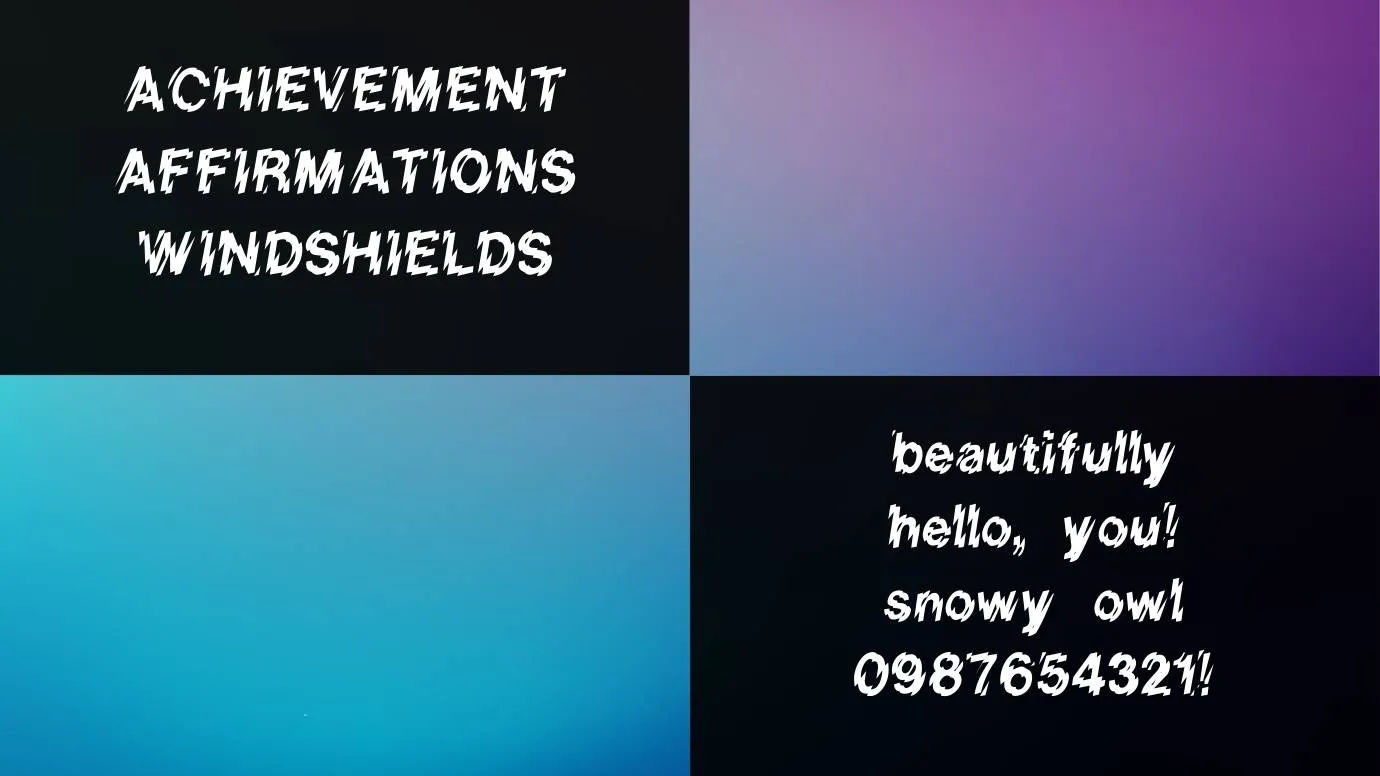
If you’re looking for a comic typeface that will make your designs stand out, then Glass Houses Font is a perfect choice. Glass Houses typeface is a comic typeface created by a Canadian typeface designer. It was named after the glass houses that were popular in the early 20th century.
The Glass Houses typeface family includes four weights: Light, Regular, Bold, and Black. Each weight has a unique set of features that make it ideal for different purposes. For example, the Light weight is perfect for headlines, while the Black weight is perfect for body text.
Glass Houses typeface has a complete set of characters including upper- and lowercase letters, numbers, punctuation marks, and international characters. This makes it a great choice for any project that requires a wide range of languages. This typeface is identical to the flames font.
Creator of Glass Houses Font
This funny and lovely typeface is created by Canada-based typeface designer Brenden C. Roemich for the foundry Digital Graphic Labs in 2010.
This font style is created with an exclusive and consistent style. This single attractive style is a combination of various characteristics, including capital and small alphabets, numbers, symbols, special characters, punctuations, glyphs, and different language support.
| Name | Glass Houses Font |
| Designer | Brenden C. Roemich |
| Foundry | Digital Graphic Labs |
Is Glass Houses typeface a modern font?
Yes, Glass Houses typeface is a modern typeface. This typeface has tremendous styles. You can use this typeface in logos, posters, and fashion designs.
Is Glass Houses Font outdated?
No, the Glass Houses typeface is not outdated. This typeface is created in 2010.
Is Glass Houses typeface good for a resume?
No, the Glass Houses typeface is not good for the resume. This is a comic typeface. This typeface is good for headings, titles, and covers.